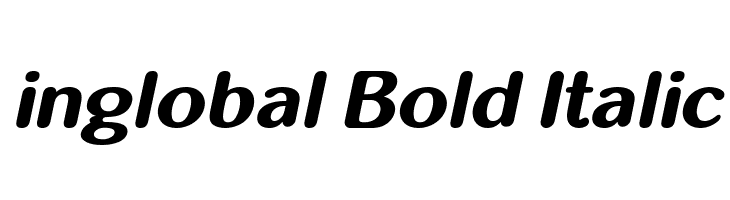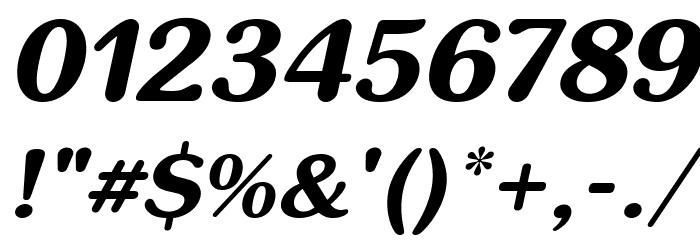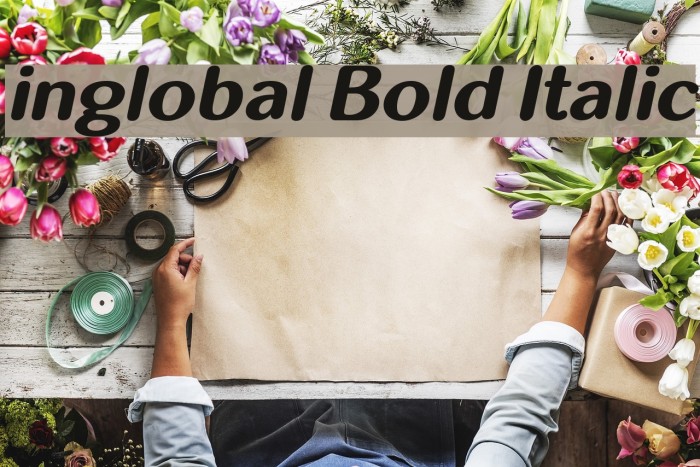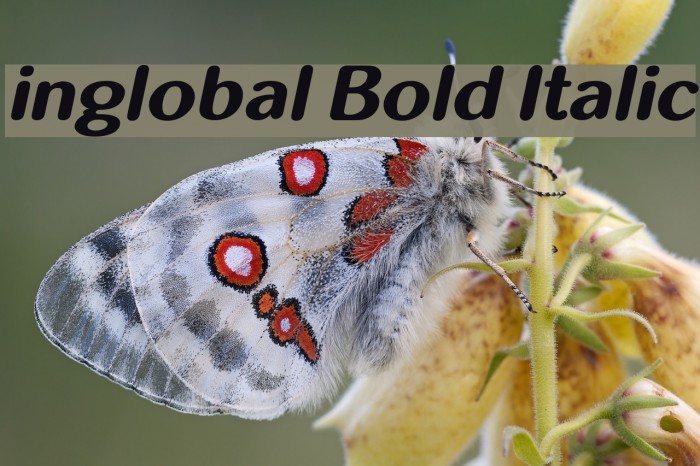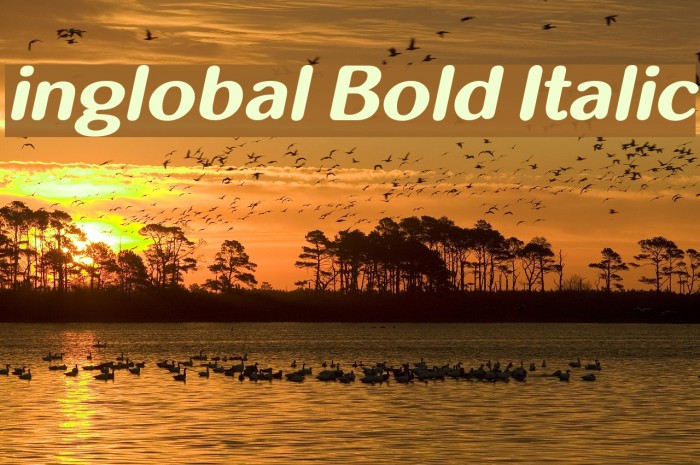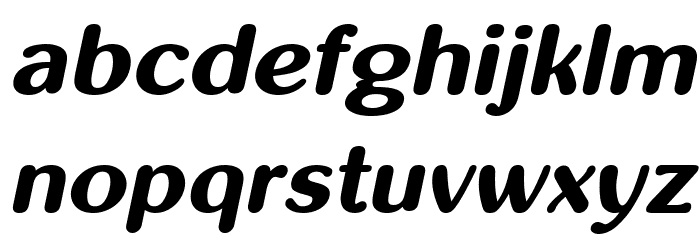
inglobal Bold Italic Font
inglobal Bold Italic Description
This font features a bold and italic style, combining a strong presence with a dynamic slant. The characters are well-defined with smooth curves and a consistent stroke width, giving it a modern and sleek appearance. The uppercase letters are slightly taller, providing a sense of authority, while the lowercase letters maintain readability with their rounded forms. The numerals are clear and distinct, ensuring legibility in various contexts. Special characters are designed to complement the overall style, making this font versatile for different applications.
A bold, italic font with smooth curves and a modern, sleek appearance from Uncategorized fonts.
- ( Andrey Kochetov - www.inglobal.ru FREE )
- Proposed Projects: Ideal for branding, advertising, and headlines where a strong and modern impression is needed.
- Use Case: Headlines, Logos, Branding